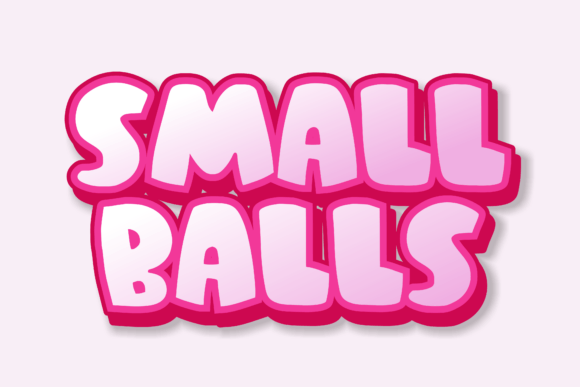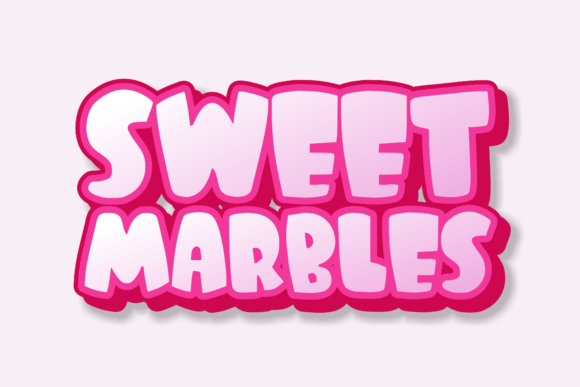
The Sweetest Font in Town: A Deep Dive into Candy Bomb
I’ll never forget the time I was working on a project for a client’s candy store. I had all the design elements in place, but something was missing – the perfect font. I scoured the internet, tried out dozens of fonts, but none seemed quite right. That was until I stumbled upon Candy Bomb, a fun and cute font that instantly brought a smile to my face. In this article, I’ll share my experience with Candy Bomb, its features, and how to make the most of it in your designs.
A Honest Review of Candy Bomb
- ✨ Retro charm: Candy Bomb is inspired by bold retro typography, making it perfect for designs that need a cheerful and fun accent.
- ✅ Versatility: This font is suitable for a wide range of applications, including packaging, posters, covers, merchandise, logos, and more.
- 💥 Impactful: Candy Bomb is a bold font that grabs attention, making it ideal for headlines, titles, and emphasis text.
While Candy Bomb is an excellent font, it’s not without its quirks. Here are a few things to keep in mind:
- 🤔 Legibility at small sizes: Due to its bold and playful nature, Candy Bomb can become difficult to read at very small sizes. It’s best used at larger sizes where its personality can shine.
- ⚠️ Overuse: As with any bold font, it’s easy to overuse Candy Bomb. Make sure to balance it with other design elements to avoid overwhelming your design.
Exploring OpenType Features, Glyphs, and Stylistic Alternates
Candy Bomb comes with a range of OpenType features, glyphs, and stylistic alternates that can add more personality to your text. Here are a few tips on how to use them:
- Stylistic alternates: Candy Bomb has several stylistic alternates that can be used to create a more playful or elegant look. Experiment with different alternates to find the one that suits your design.
- Glyphs: Candy Bomb comes with a range of glyphs that can be used to add more personality to your text. Use glyphs to add decorative elements, such as swashes or ornaments.
The Backstory of Candy Bomb
Candy Bomb was designed by a team of designers who wanted to create a font that captured the fun and playfulness of retro typography. Inspired by vintage candy advertisements and retro packaging, Candy Bomb is a bold and cheerful font that’s perfect for designs that need a sweet accent.
Q: What is Candy Bomb font?
A: Candy Bomb is a fun and cute font inspired by bold retro typography. It’s perfect for designs that need a cheerful and fun accent.
Q: What can I use Candy Bomb font for?
A: Candy Bomb is suitable for a wide range of applications, including packaging, posters, covers, merchandise, logos, and more.
Q: Is Candy Bomb font easy to read?
A: Candy Bomb is a bold font that can be easy to read at larger sizes. However, it may become difficult to read at very small sizes.